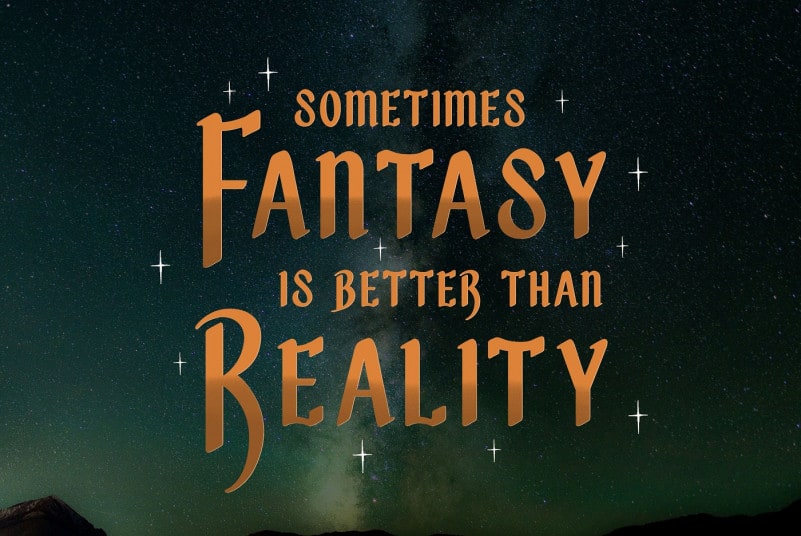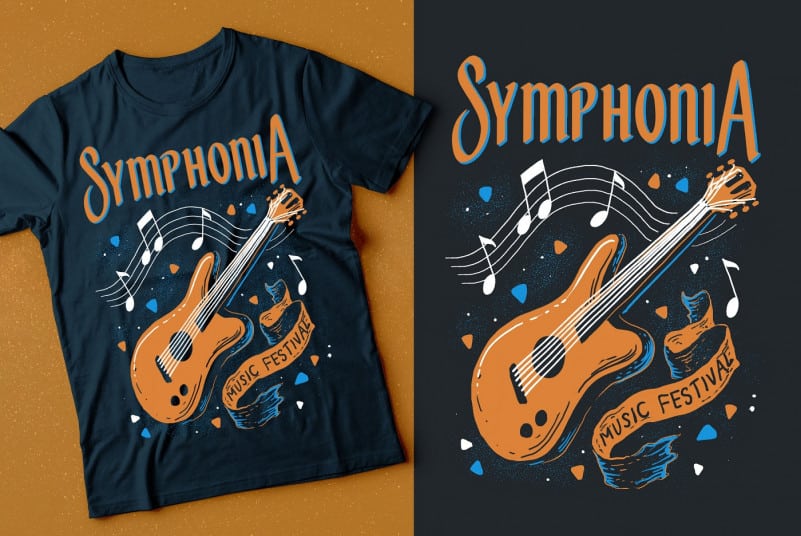
Solander Display Font
Solander Display Font is a display typeface with sharp shaped characters to support your brand/project.
Solander is perfect for projects such as logos & branding, headlines, posters, signage, advertisements, printed quotes, product packaging, product designs, label, photography, watermark, special events or anything.